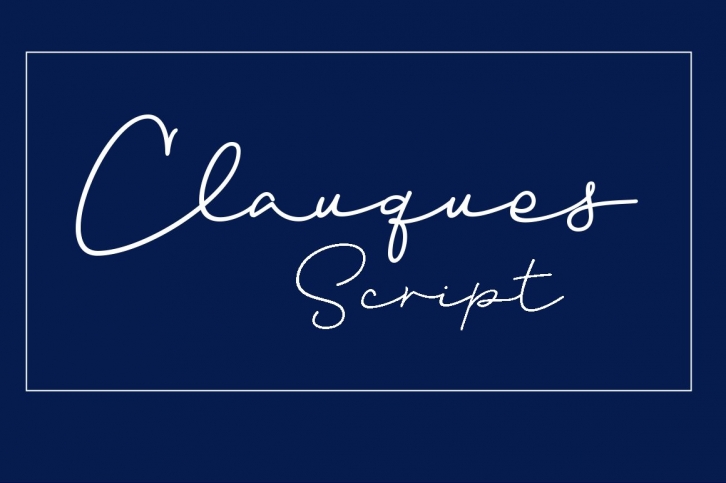
Clauques Script will allow you to create elegant works.
This font is the great choice for any project from logos, magazines and book covers, children’s material, fashion, headlines, cards, posters, websites, packaging and, basically, anywhere you want.